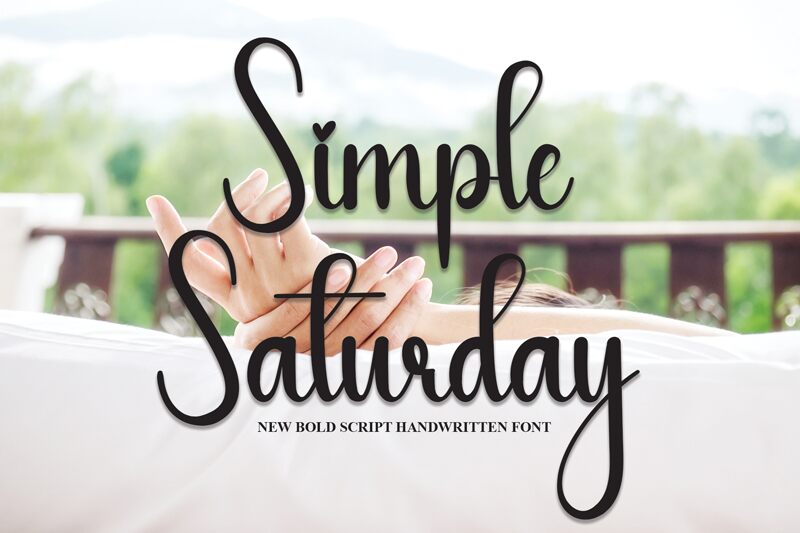
Simple Saturday
Simple Saturday, designed by Scratchones, is a handwritten font that exudes casual elegance and a personal touch. Its semi-light weight gives it a delicate and approachable feel, while the semi-condensed width ensures readability without sacrificing its stylish flair. The flowing curves and slight slant of Simple Saturday evoke the ease of weekend scribbles in a journal or on a cafe napkin.
This font's aesthetic appeal lies in its blend of simplicity and sophistication, making it versatile for an array of creative projects. Whether you're crafting invitations, branding materials, or social media graphics, Simple Saturday brings an intimate and bespoke quality to your designs. Its handwritten style adds warmth to digital communications, providing that sought-after human element.
With Simple Saturday, your creative work will resonate with viewers through its charming appearance and relaxed vibe—perfect for projects that require a dash of personality paired with effortless chic.
This font's aesthetic appeal lies in its blend of simplicity and sophistication, making it versatile for an array of creative projects. Whether you're crafting invitations, branding materials, or social media graphics, Simple Saturday brings an intimate and bespoke quality to your designs. Its handwritten style adds warmth to digital communications, providing that sought-after human element.
With Simple Saturday, your creative work will resonate with viewers through its charming appearance and relaxed vibe—perfect for projects that require a dash of personality paired with effortless chic.